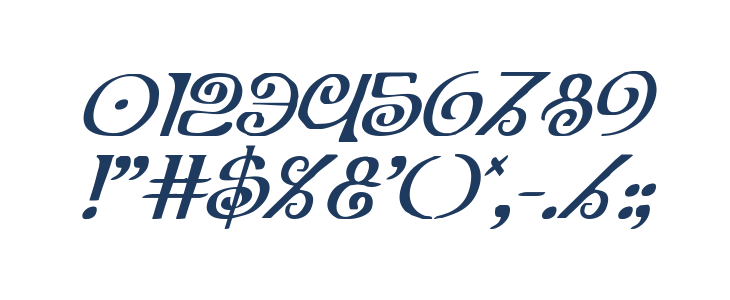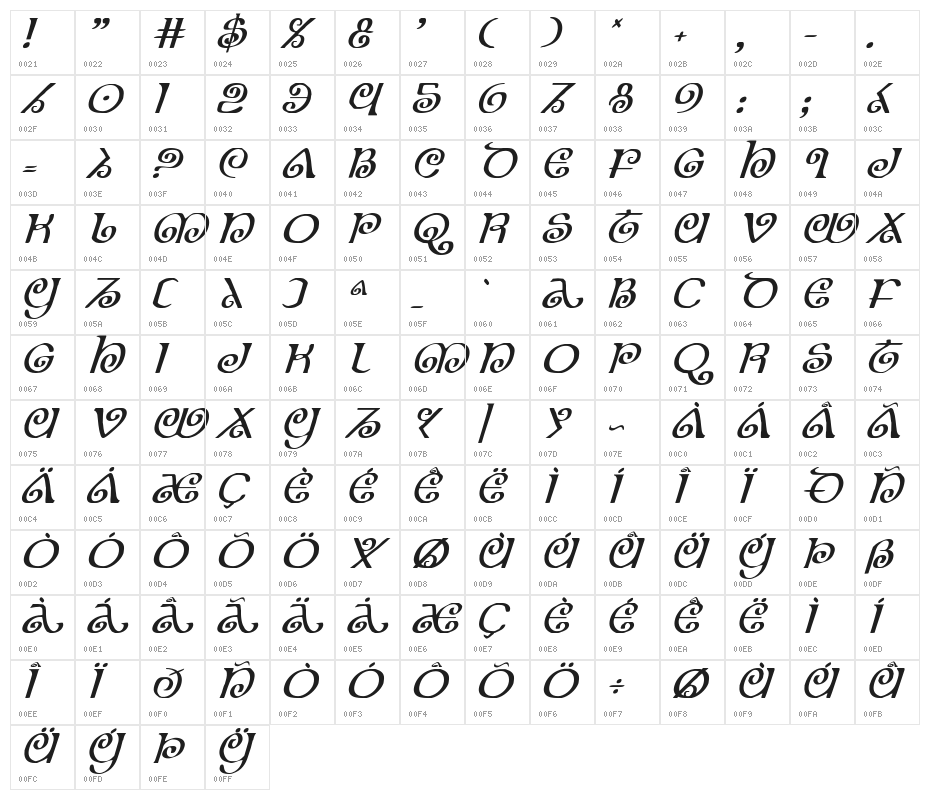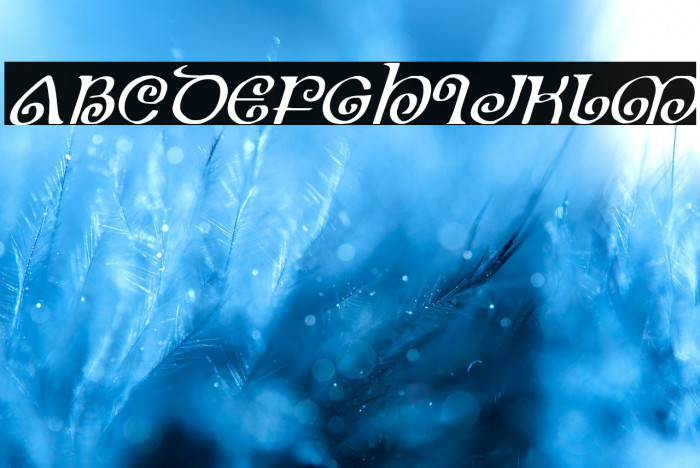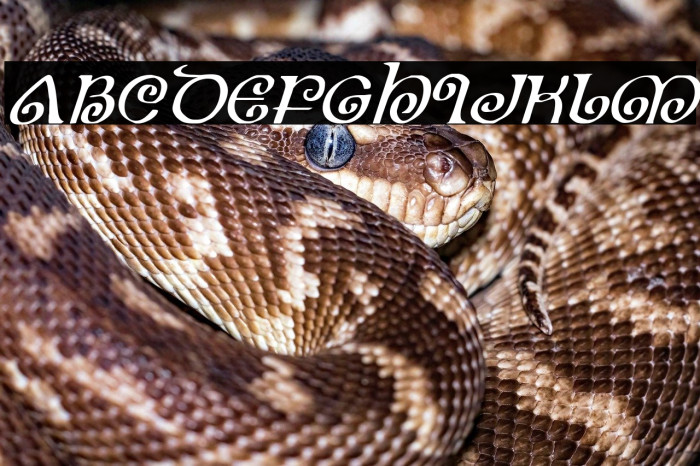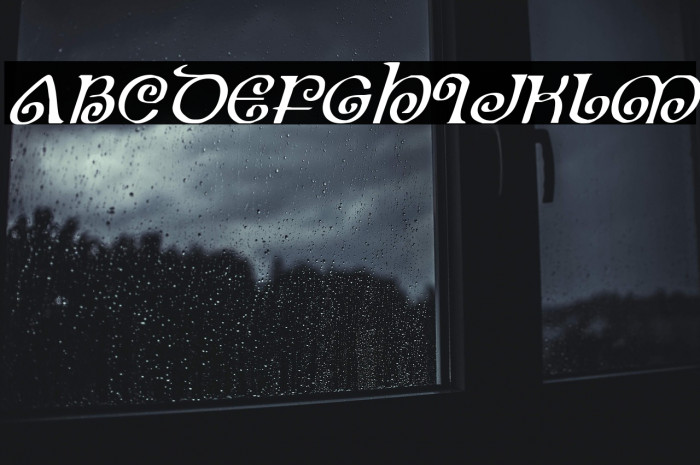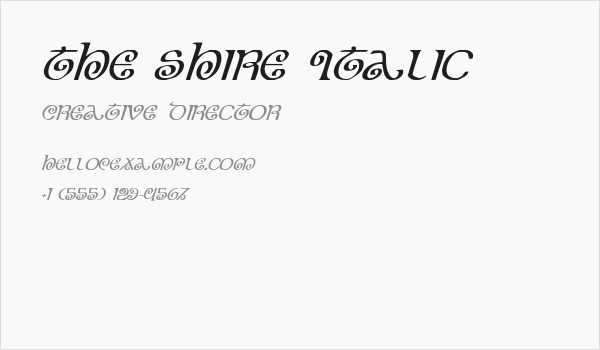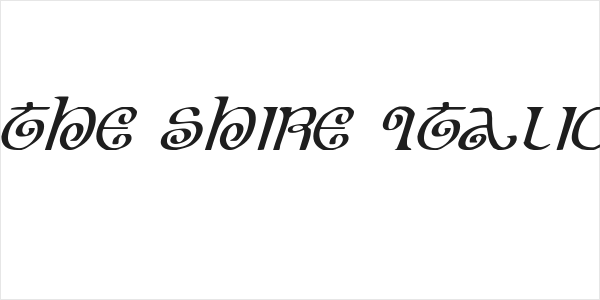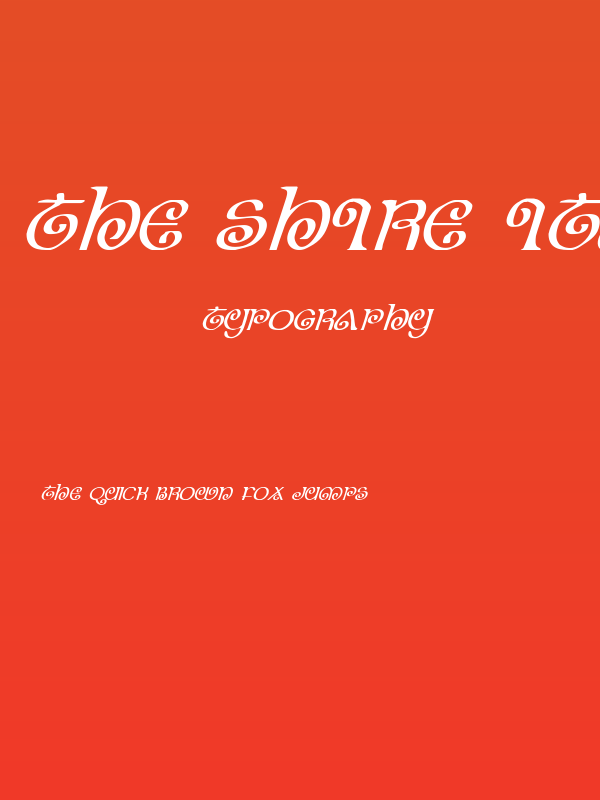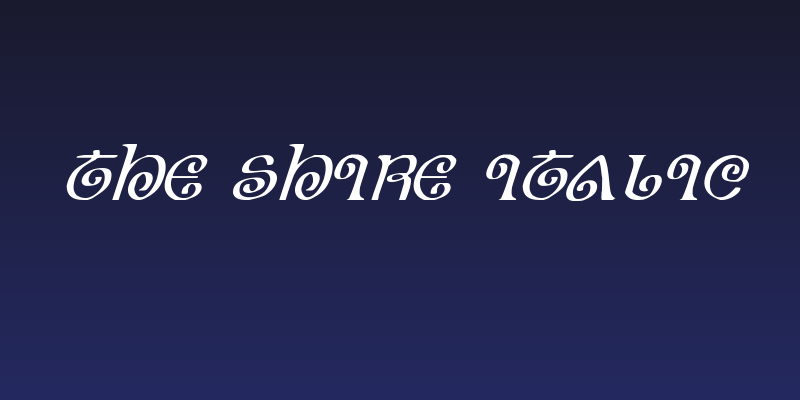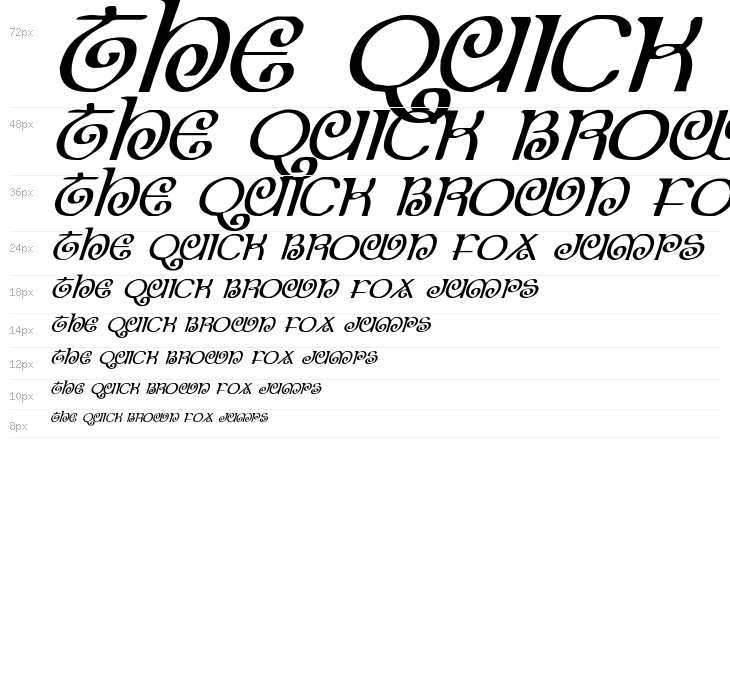
The Shire Italic Font
The Shire Italic Description
This font features an elegant and whimsical design, characterized by its flowing, cursive-like strokes and intricate swirls. The letters exhibit a unique blend of traditional calligraphy and modern flair, creating a sense of movement and grace. The uppercase and lowercase letters maintain a consistent style, with each character adorned with decorative elements that enhance its visual appeal. The numerals and special characters are equally ornate, contributing to the font's overall cohesive and artistic appearance. This font is perfect for projects that require a touch of fantasy or elegance.
| Proposed Projects | Ideal for fantasy-themed designs, wedding invitations, book covers, and artistic branding. |